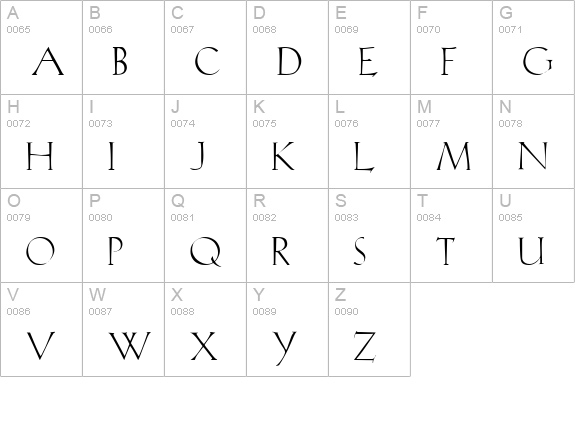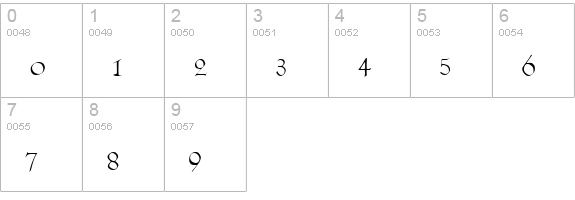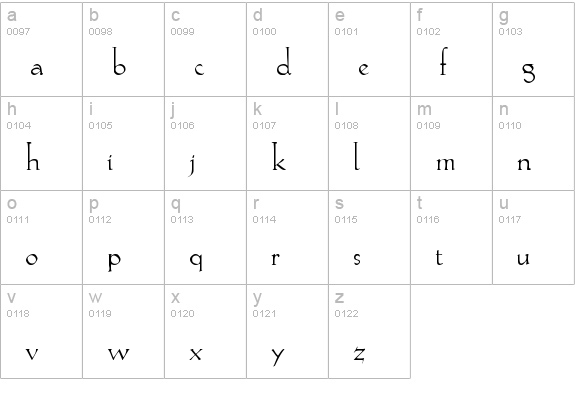
Lilith Regular is the standard, neutral variant in the Lilith typeface family \xE2\x80\x94 well suited to general body text, paragraphs, and standard typographic work.
Lilith Regular font is a versatile and elegant typeface that will elevate any design project. With its clean lines and modern aesthetic, this font is perfect for a wide range of applications, from branding to editorial design. The sleek and sophisticated look of Lilith Regular will add a touch of refinement to any project. What makes Lilith Regular even more appealing is that it is available for free download at FontsMarket.com. You can easily access this stunning font and incorporate it into your designs without any cost. Don't miss out on the opportunity to enhance your creations with the beauty of Lilith Regular font. Download it today and see the difference it can make in your design work!